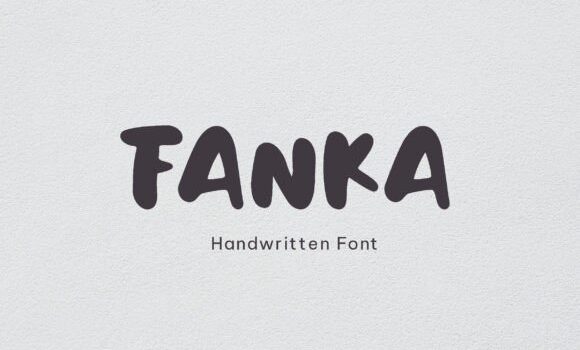
Fanka Font – Free Download Introduction to Fanka Font Fanka is a casual handwritten font that captures a relaxed and friendly vibe with its natural, flowing strokes. 📸 Preview Gallery 4 images 📌 Product Name Fanka Font 👤 Author FontCastle